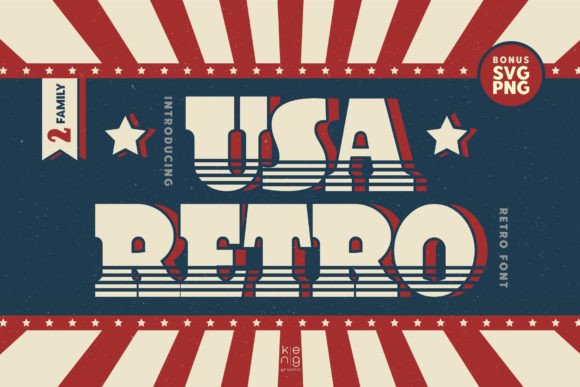
Introducing the Usa Retro Font collection, the ultimate choice for those seeking the best font for their Easter basket designs! Created by the talented Keng Graphic, this display font family will transport you back in time with its retro vintage vibes. Inspired by the letterforms and fonts of the iconic 60s, 70s, and 80s era, Usa Retro Font is guaranteed to make your creations stand out from the crowd.
With its unique shape and captivating style, Usa Retro Font is the perfect addition to any design idea you can think of. Whether you're working on a poster, logo, packaging, or even a website, this font will effortlessly add a touch of nostalgia and grab attention like never before. Let your Easter baskets shine with a timeless charm that will captivate your audience!
What sets Usa Retro Font apart is its ability to instantly transport your viewers to a bygone era. Each letter embodies the essence of retro design, evoking feelings of nostalgia and warmth. As your audience lays eyes on your Easter basket designs, they will be drawn to the authenticity and undeniable allure of this font collection.
But Usa Retro Font isn't just about aesthetics; it's also about functionality. With its versatility, this font family adapts to any project effortlessly. Its wide range of weights and styles allows you to experiment with different looks, ensuring that your designs perfectly reflect your vision. From bold and impactful headlines to elegant and sophisticated body text, Usa Retro Font has you covered.
Indulge your creative side and let Usa Retro Font be your artistic companion. With its keyword-rich design, this font collection will enhance your SEO efforts, making your products more discoverable to users searching for the perfect font to elevate their Easter basket designs. Don't settle for ordinary fonts when you can have the best font for the job!
Unlock the power of Usa Retro Font and embark on a journey through time. Let your designs tell a story, evoke emotions, and leave a lasting impression. Step into the world of retro chic and embrace the timeless allure of this captivating font collection.